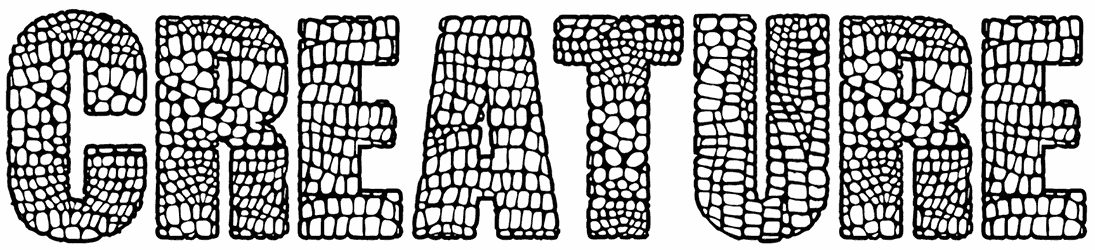
Creature Font
Creature with its really distinctive look can make your viewers unable to take their eyes off your design. This snake font with an animal skin texture will create a natural and cool mood for texts. Creature doesn’t offer lowercase letters, numerals, and most of the punctuation, but let’s have some fun and create an impressive design like a poster, background, cover, or more.
Four overlapping fonts.